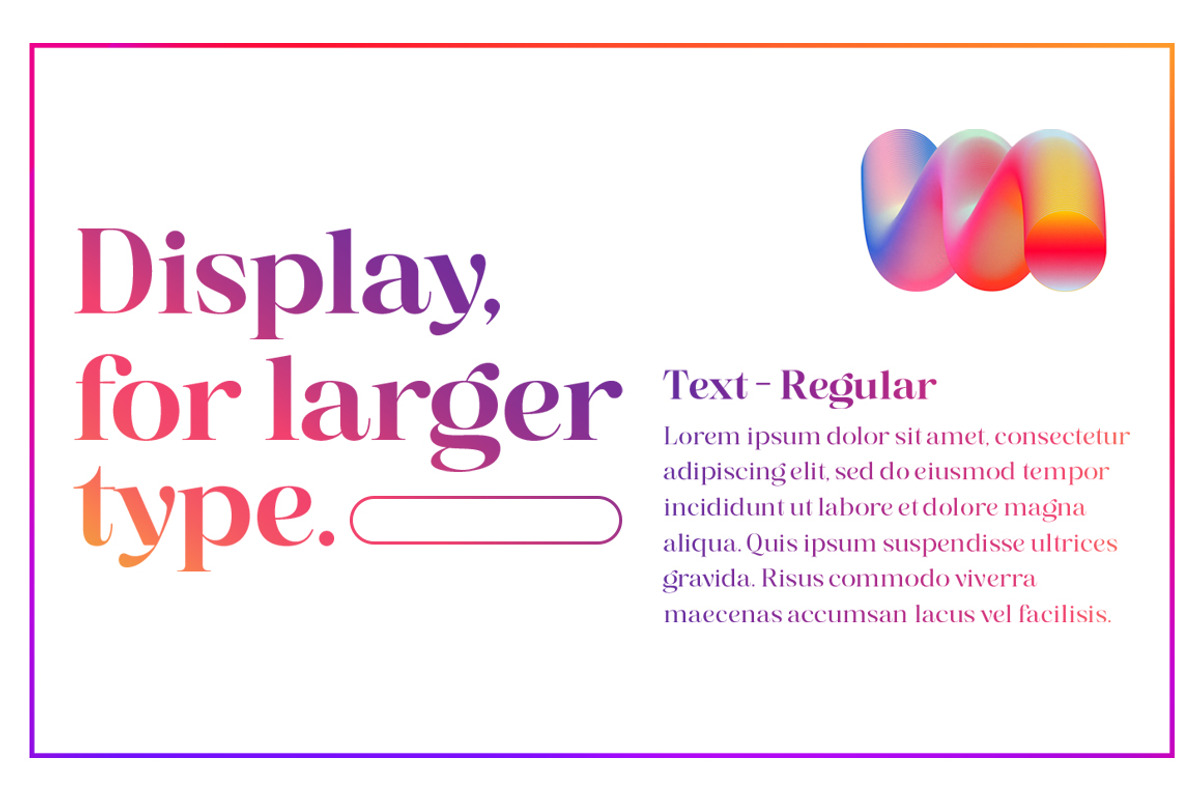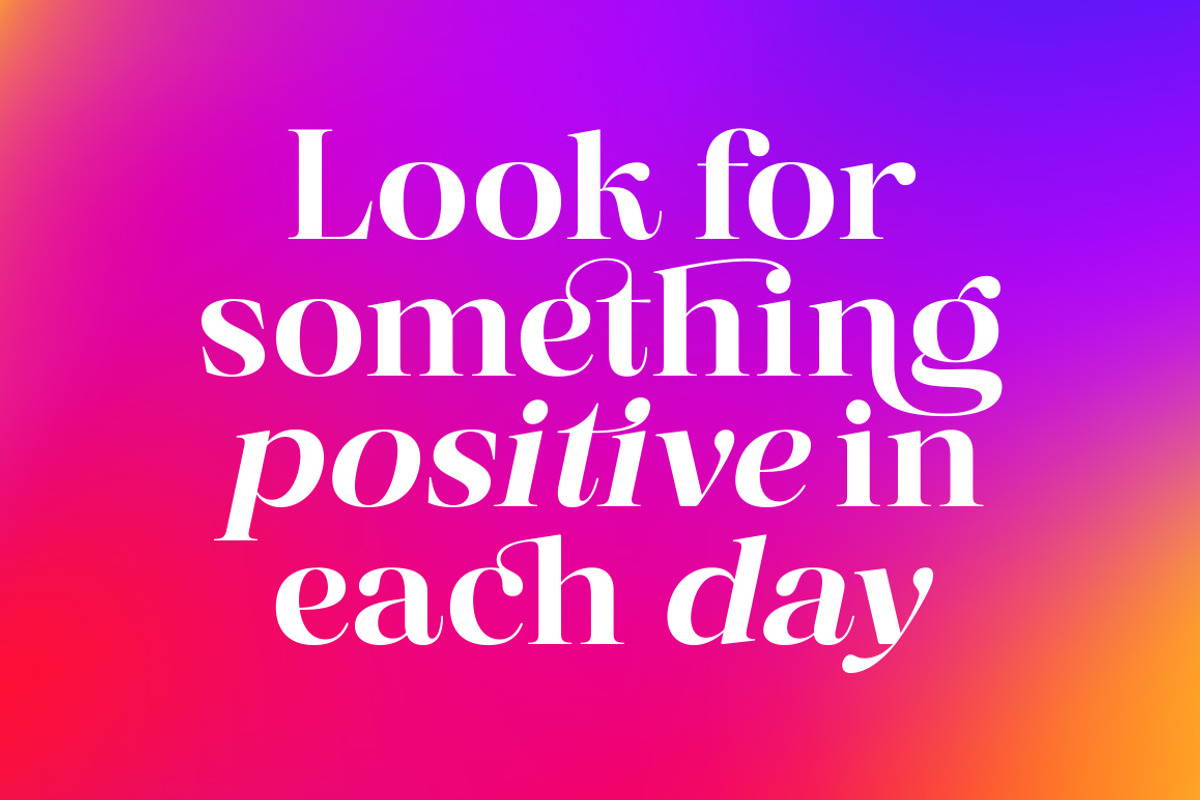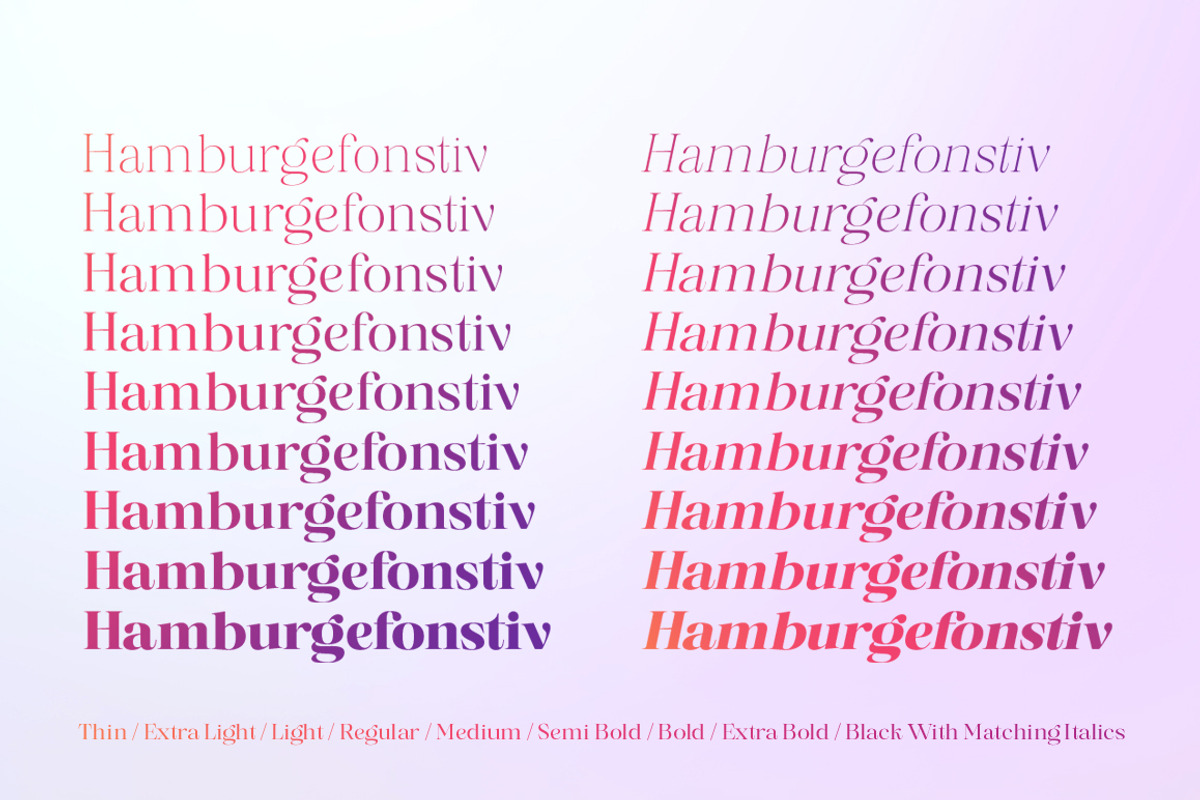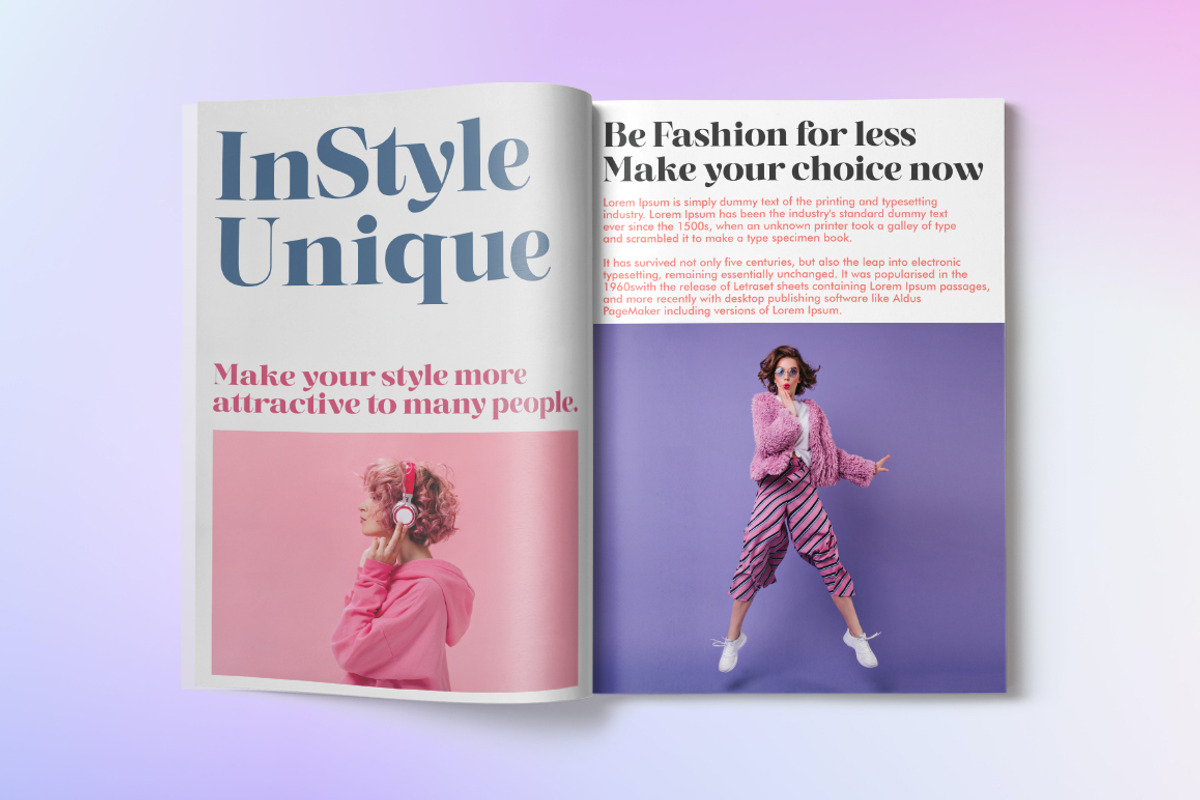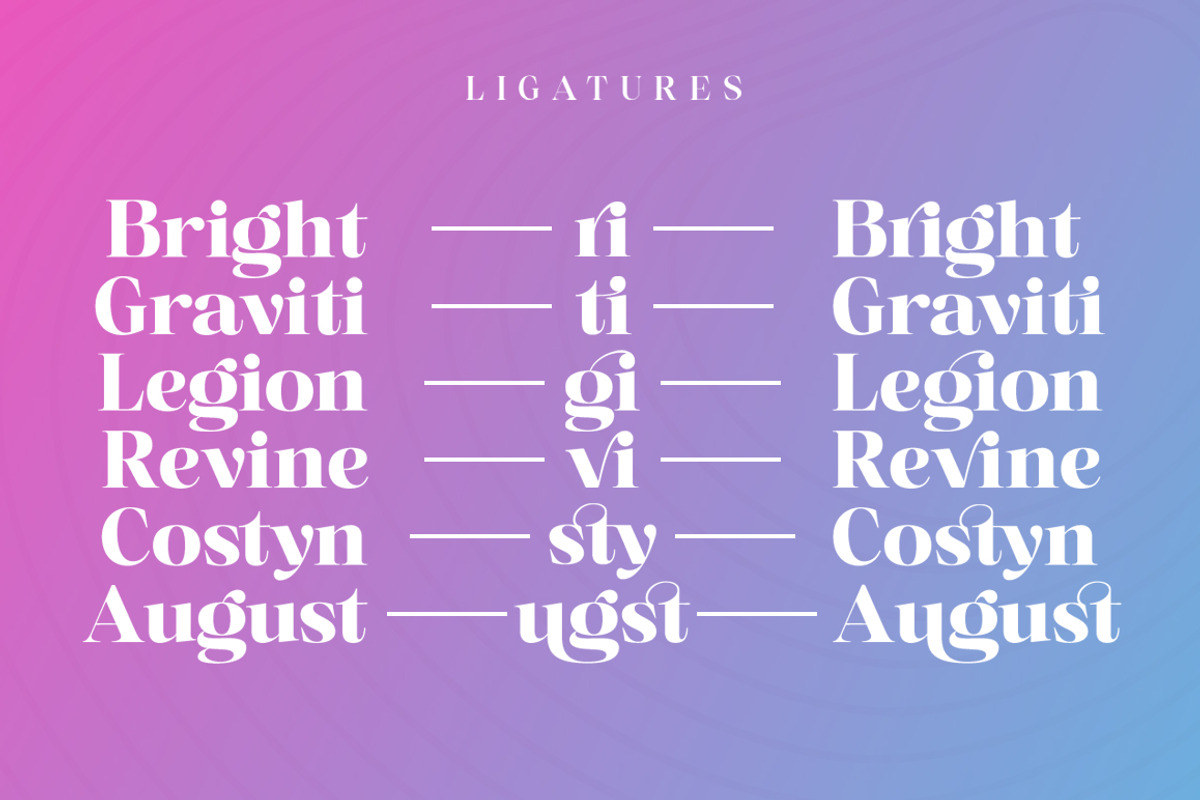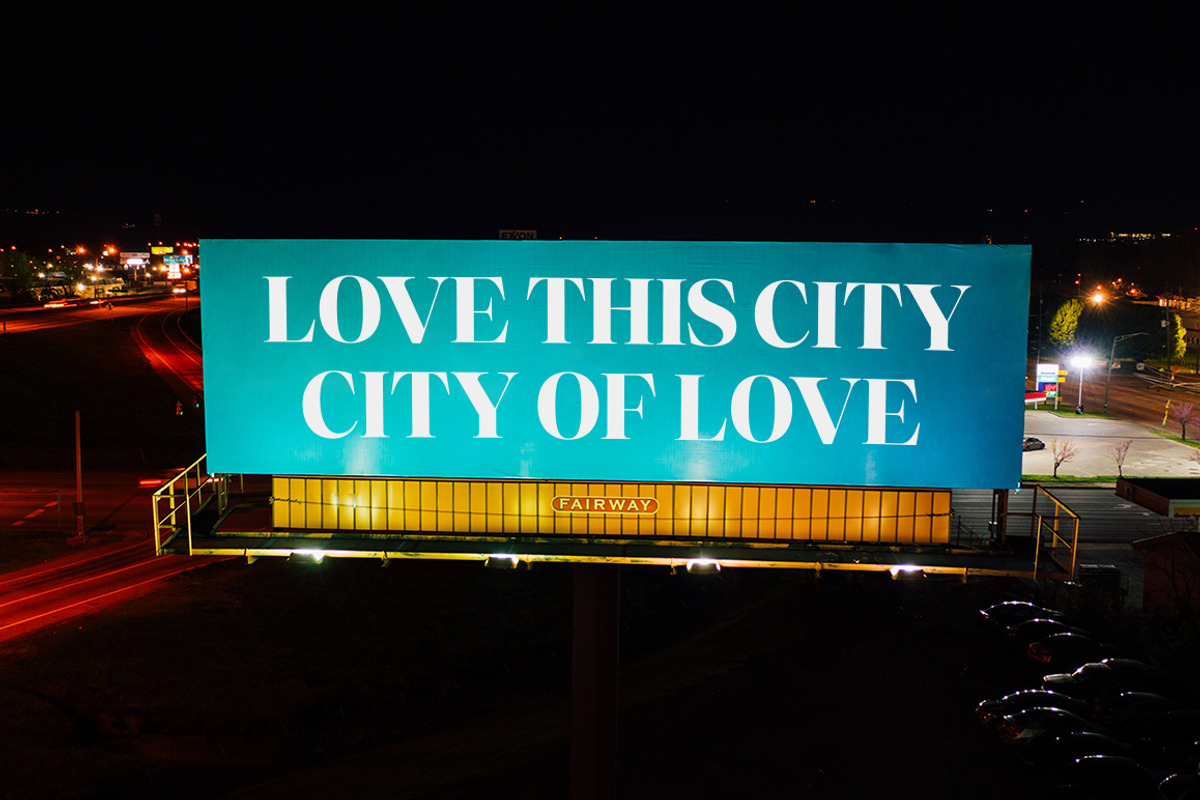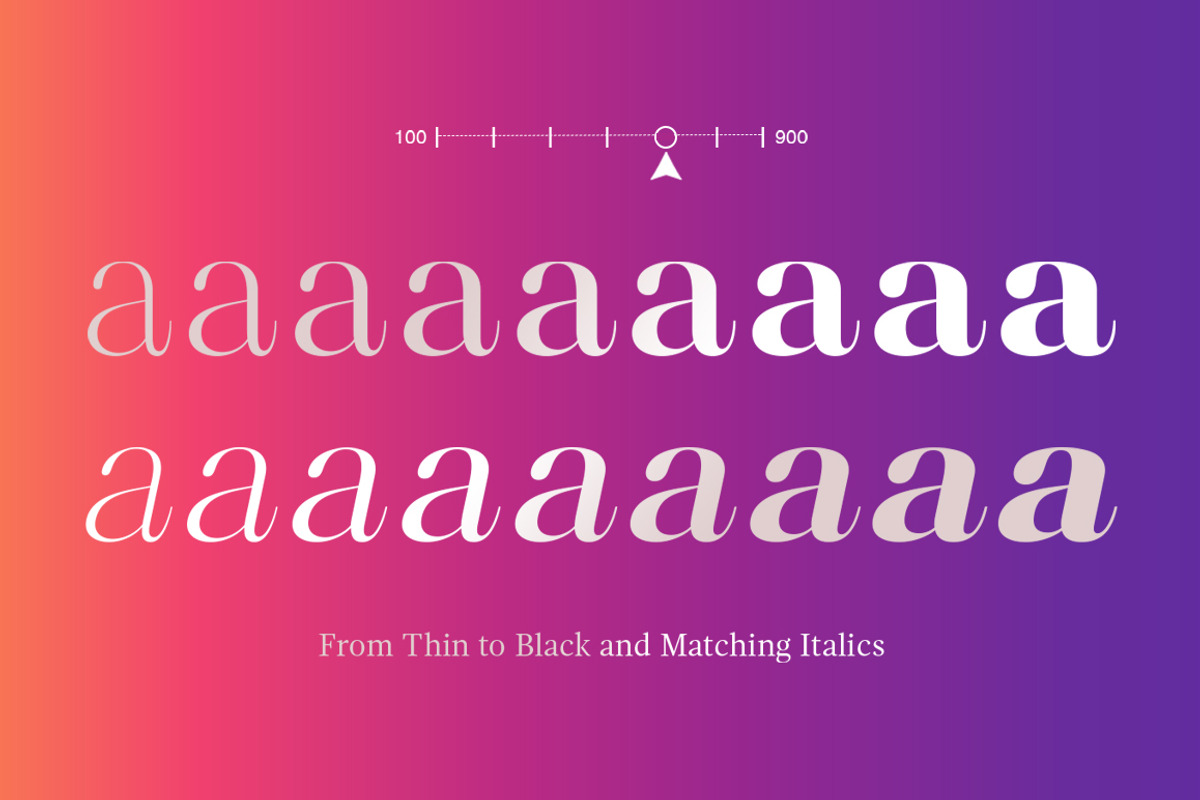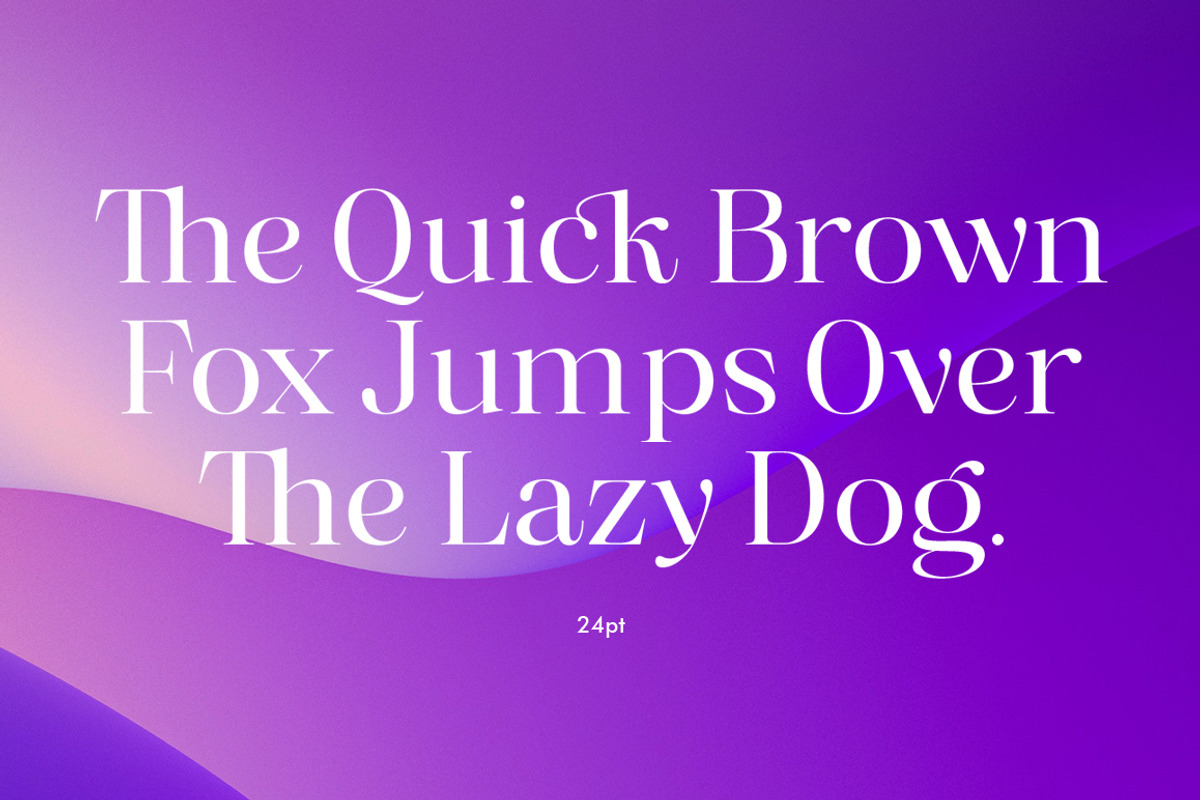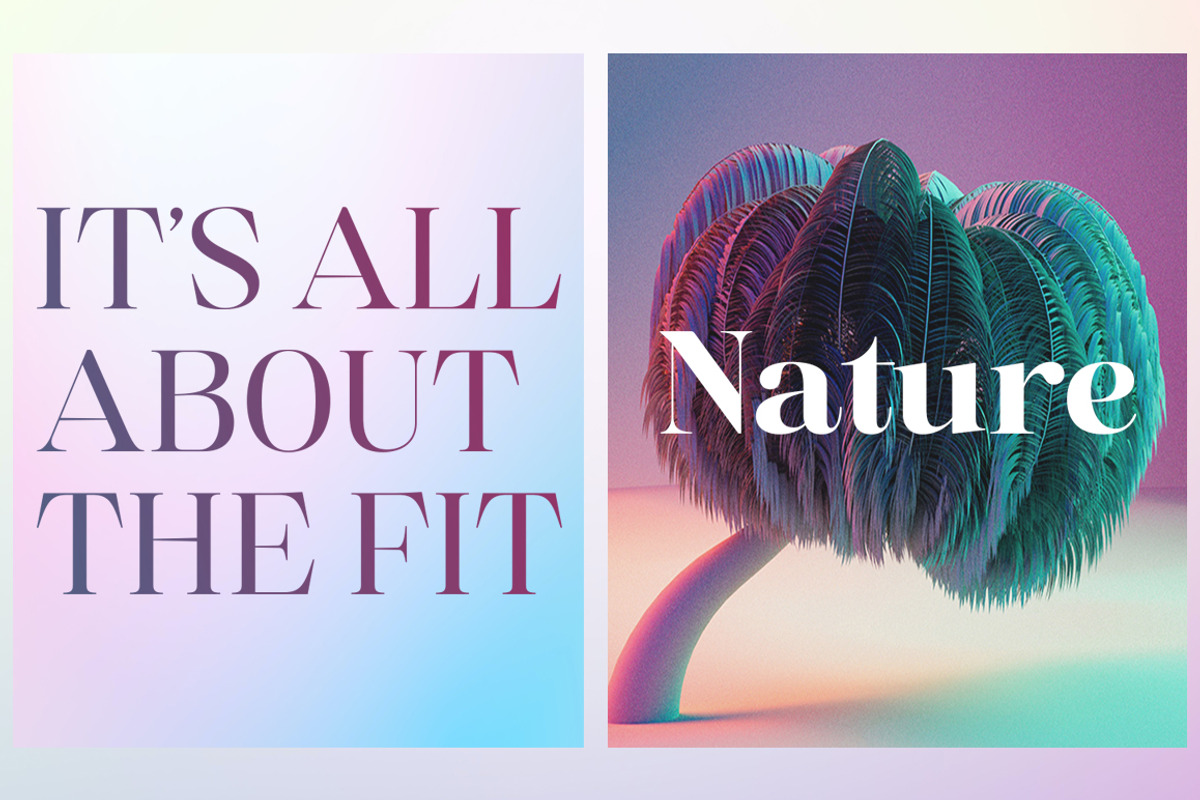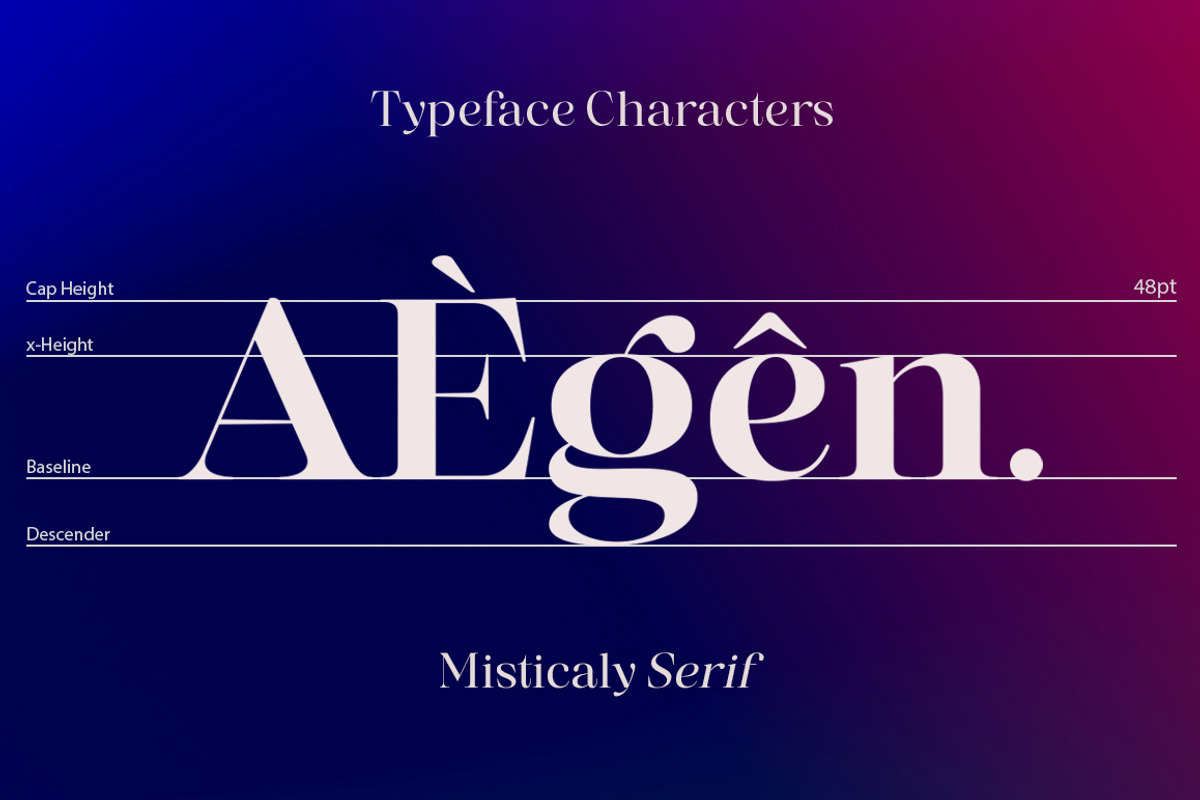
Misticaly Serif
INTRODUCING
Misticaly is an elegant and warm Serif Display Font with a classic feel. Looks great at display size and easy to read at text size.
Includes one Variable version and 18 Font, regular and italic. From Thin to Black. The OpenType feature allows typographic implementations such as ligatures and multiple language support.
Misticaly excels in display settings such as headlines, branding projects, Logo designs, packaging, magazine titles, web design, advertisements, short or long texts, etc.